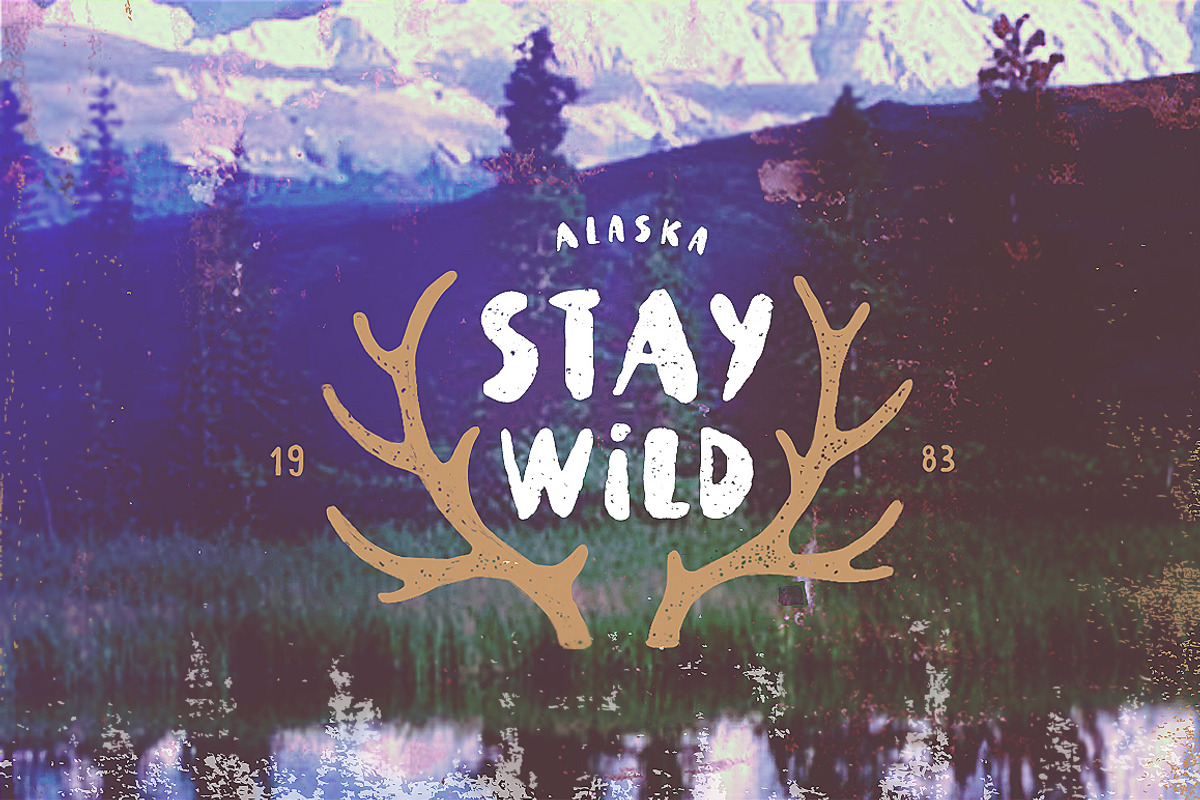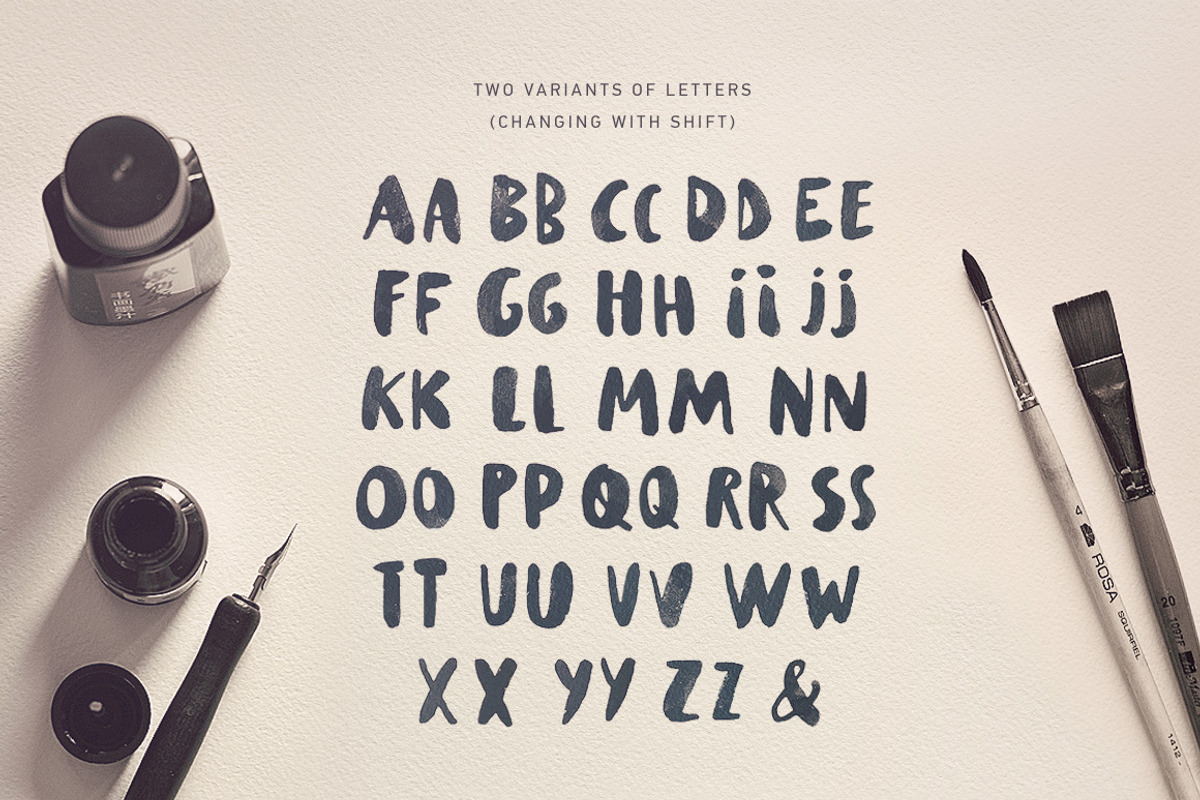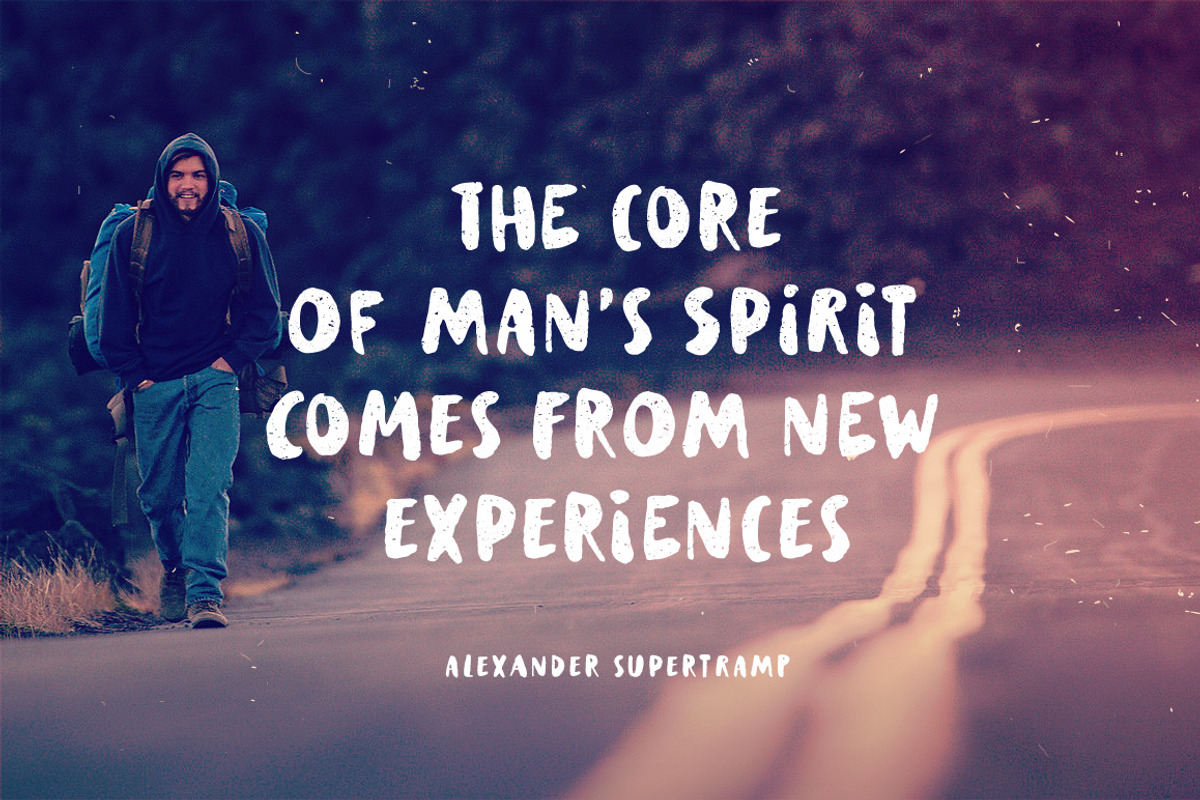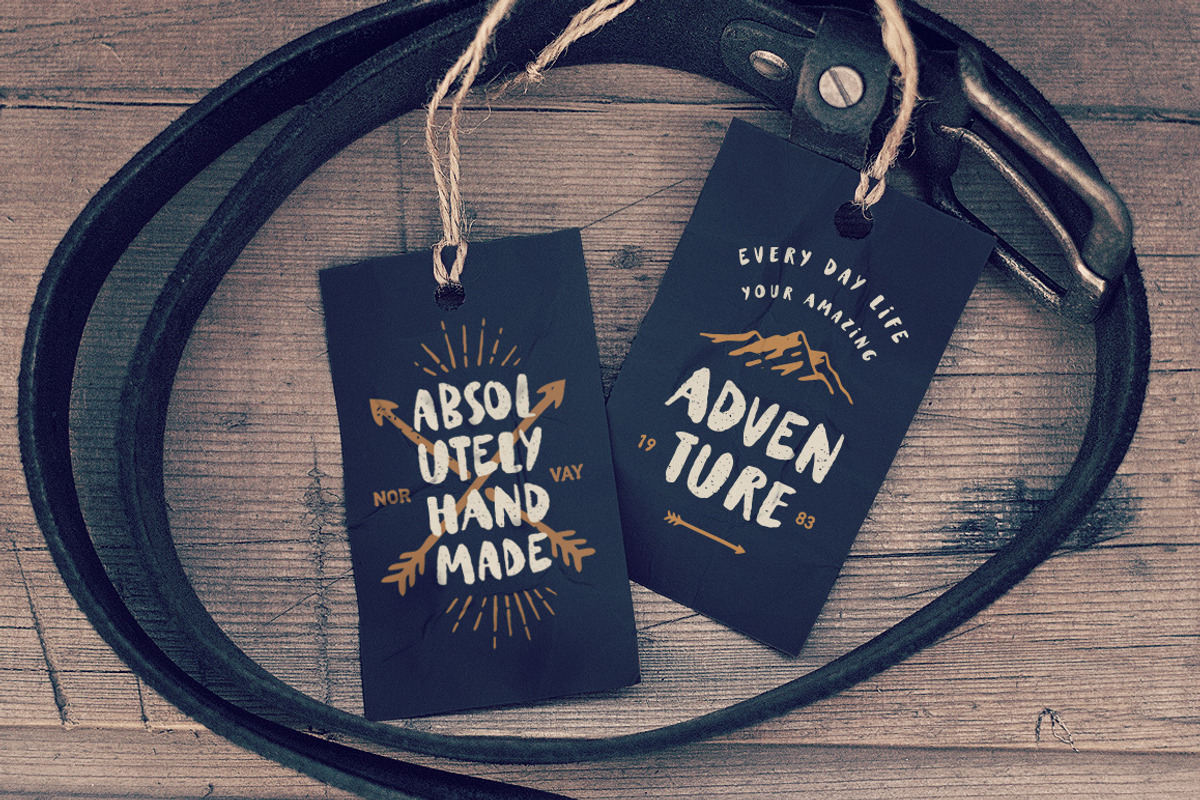
Supertramp Typeface
Supertramp Typeface by Andrey Sharonov is a font selected for branding, posters, packaging, typography.
- Supertramp typeface has a clean and textured versions (uppercase alphabet and numbers).
Why Supertramp Typeface is worth a look
Supertramp Typeface by Andrey Sharonov fits naturally into Branding, posters, packaging, typography.